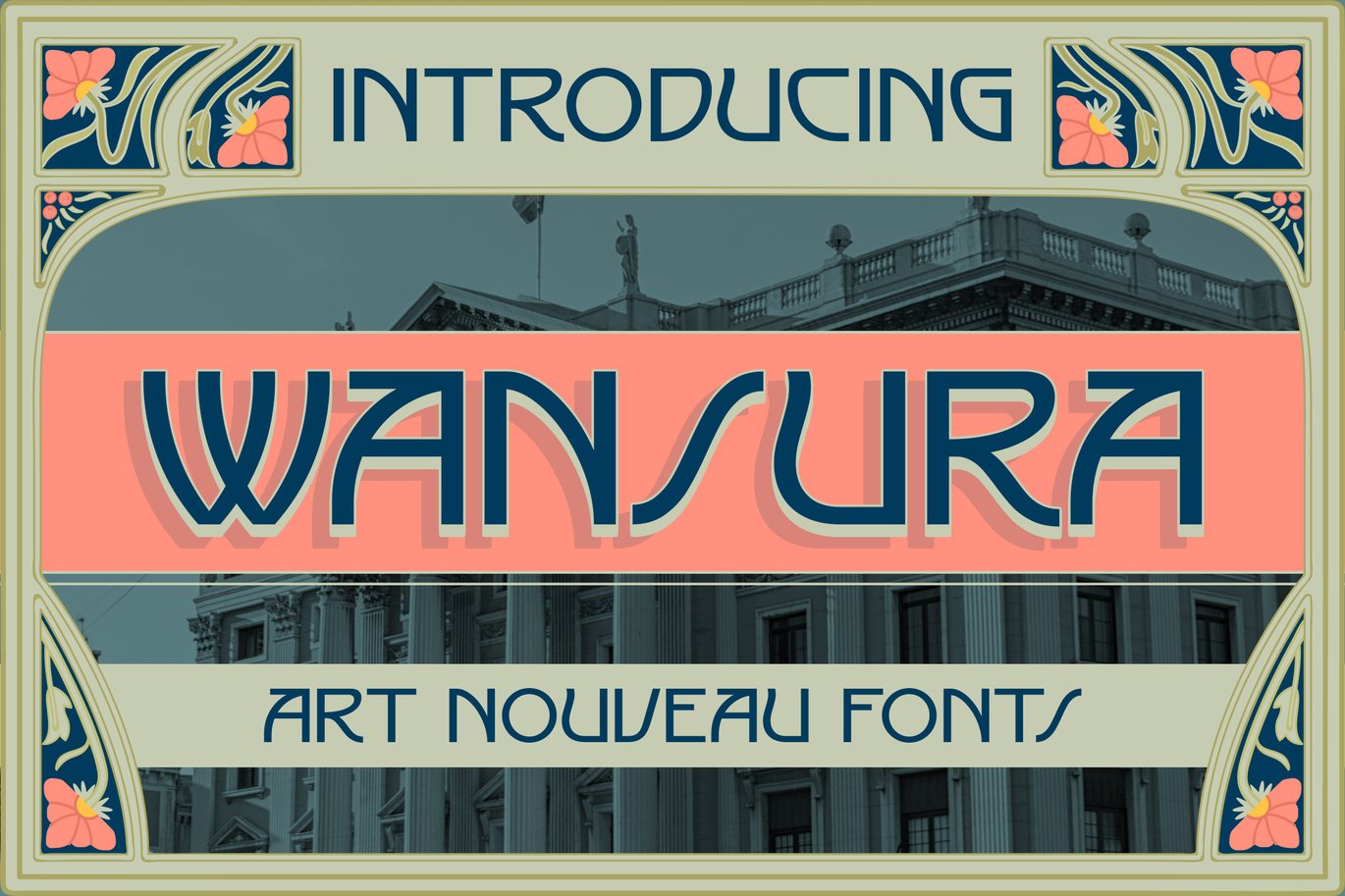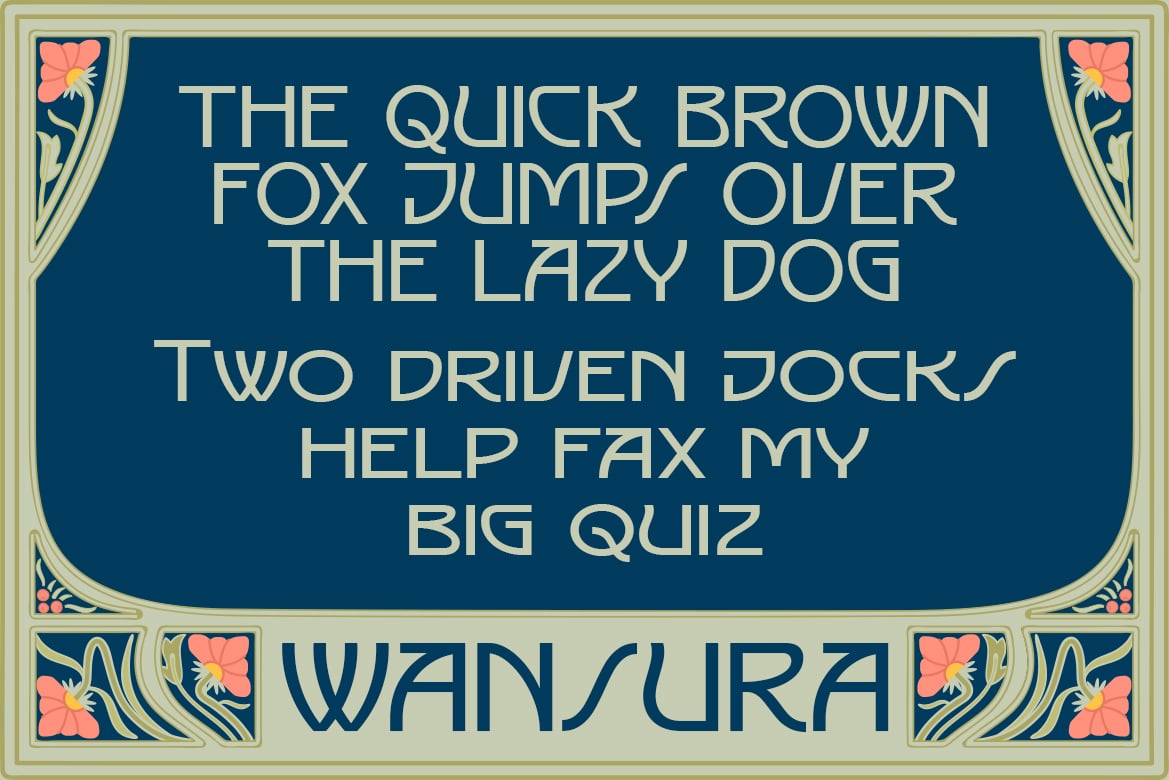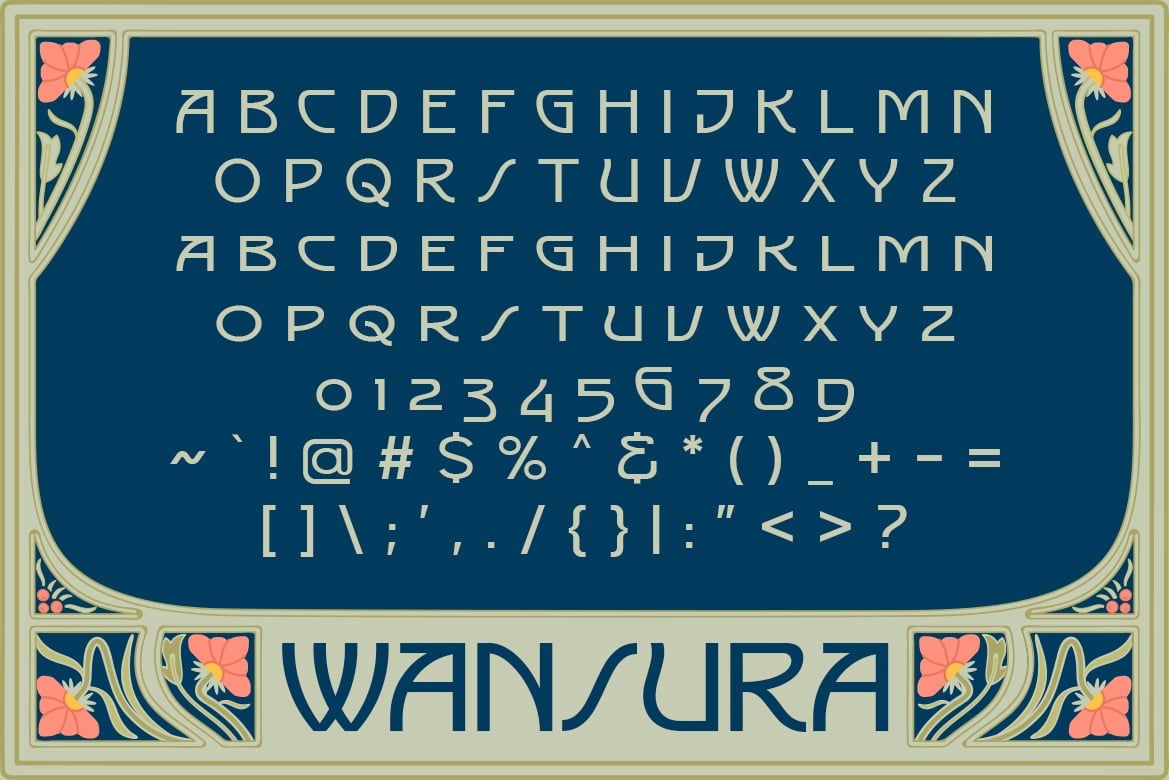
Wansura – Art Nouveau Fonts
Wansura is an Art Nouveau-based font. It was inspired by the trend of the art nouveau era. We talked about signs, decorative visuals, architecture, art, and a lot of human aspects back in the day.
Perfectly fit for a logo, branding, signage, decor, books, cover, badges and emblems, clothing, apparel, merchandise, movie title, serials, and many more.